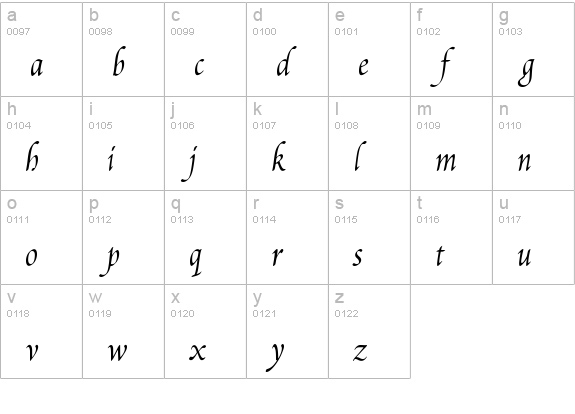
Poetica Chancery IV Font Details
Poetica Chancery IV is a captivating and elegant font that exudes sophistication and charm. This exquisite typeface features delicate curves and intricate details that make it perfect for adding a touch of refinement to any project. Whether you are creating invitations, branding materials, or editorial designs, Poetica Chancery IV will elevate your work with its timeless appeal. What sets Poetica Chancery IV apart is its seamless blend of classic style and modern sensibility. The graceful letterforms and graceful flourishes create a sense of luxury and prestige, making this font a standout choice for those seeking a touch of elegance in their designs. And the best part? Poetica Chancery IV is available for free download at FontsMarket.com. This means that you can access this stunning font without any cost, making it a valuable addition to your font collection. Don't miss out on the opportunity to enhance your projects with the beauty and sophistication of Poetica Chancery IV. Download it today and let your creativity shine!